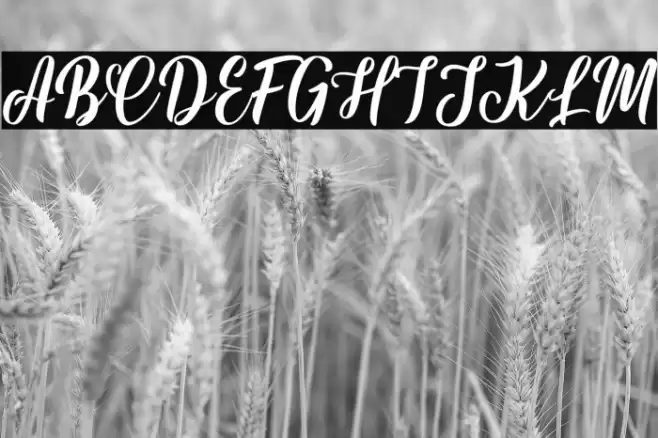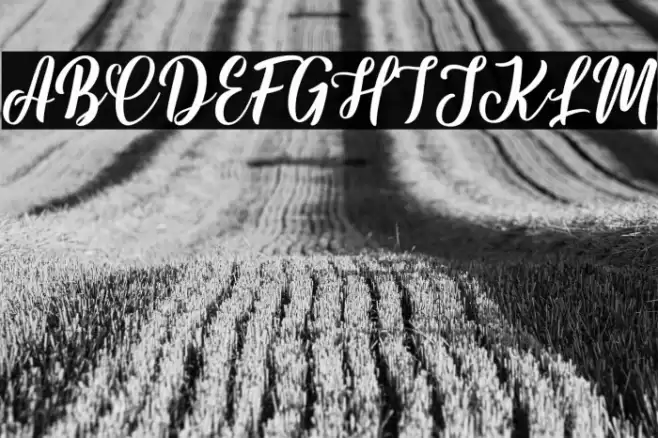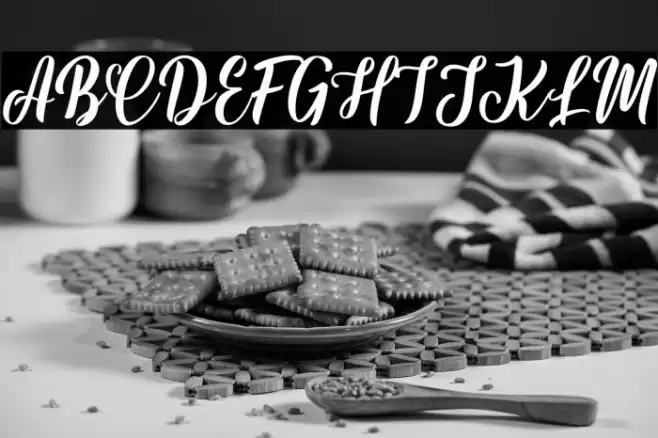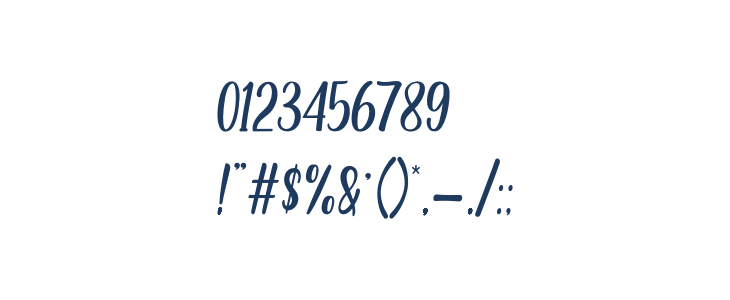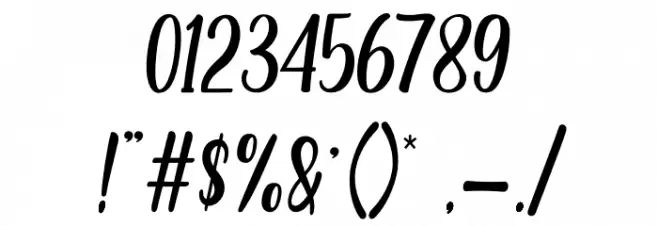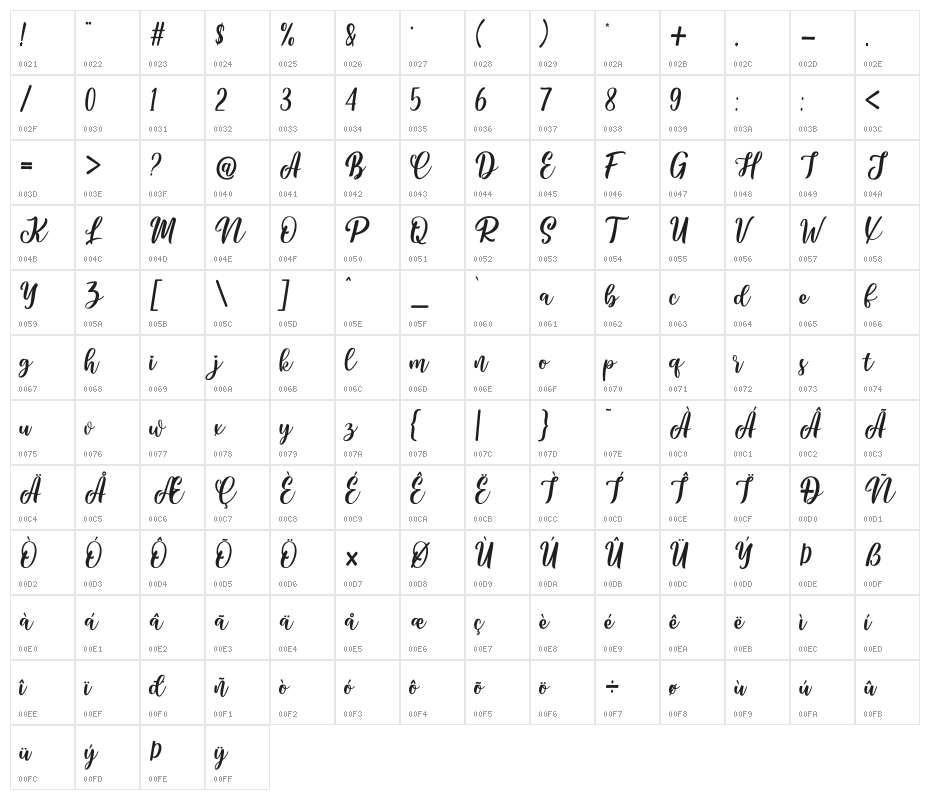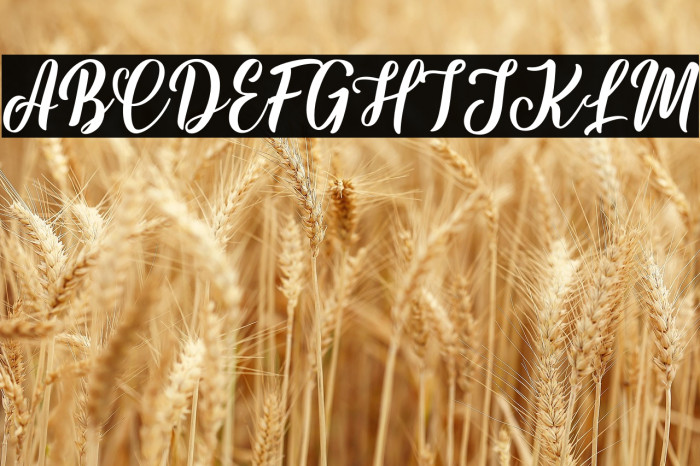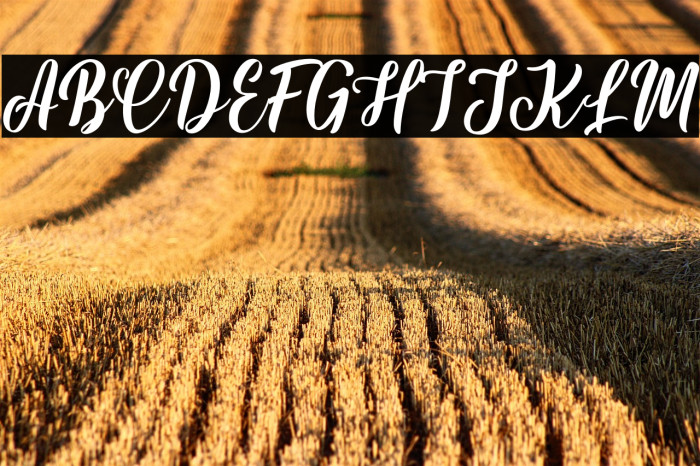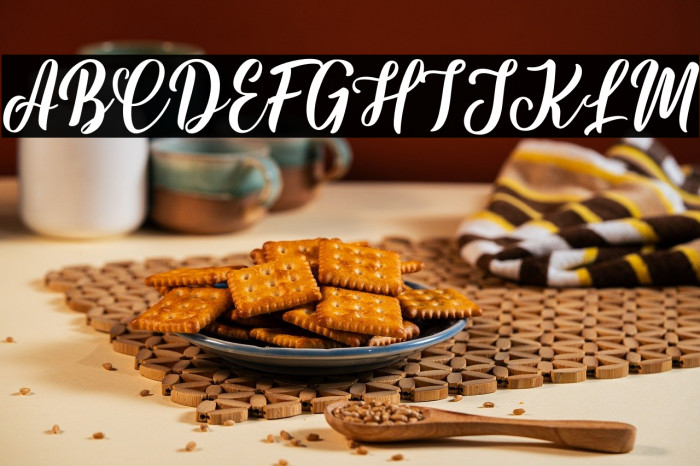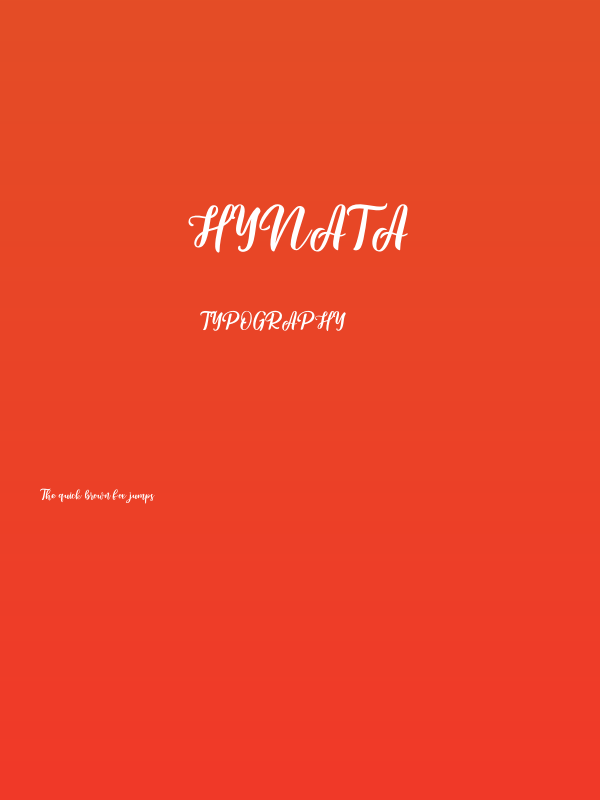
Hynata Font
Hynata Description
This font features a flowing, cursive style with elegant, sweeping curves and a handwritten appearance. The uppercase letters are bold and expressive, with distinctive loops and flourishes that add a touch of sophistication. The lowercase letters maintain a consistent style, with smooth connections between characters, enhancing the script's fluidity. Numbers and special characters are designed to match the overall aesthetic, ensuring a cohesive look across all text elements. The font's playful yet refined nature makes it suitable for a variety of creative projects.
A bold, cursive script font with elegant, flowing curves and a handwritten style from Uncategorized fonts.
- Proposed Projects: Ideal for wedding invitations, greeting cards, branding, and logo design, where a personal and elegant touch is desired.
- Use Case: Logos, Invitations, Greeting Cards